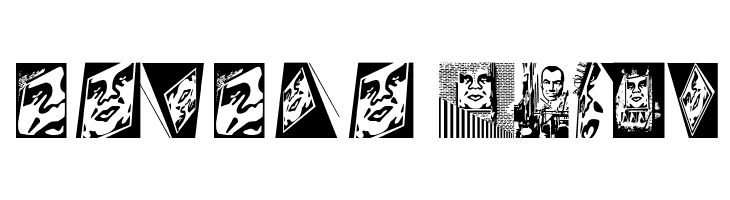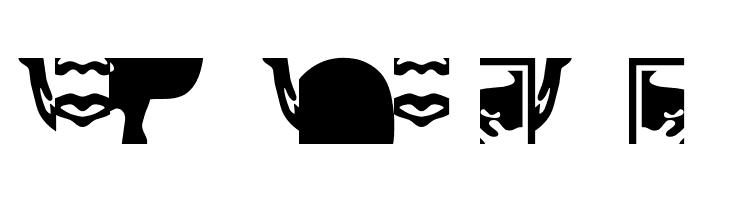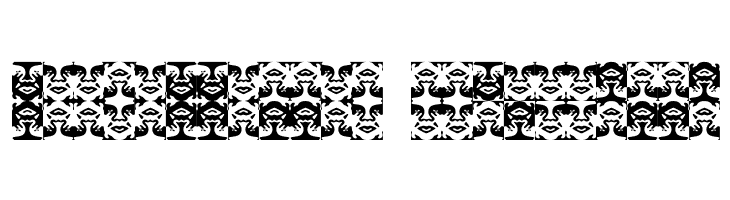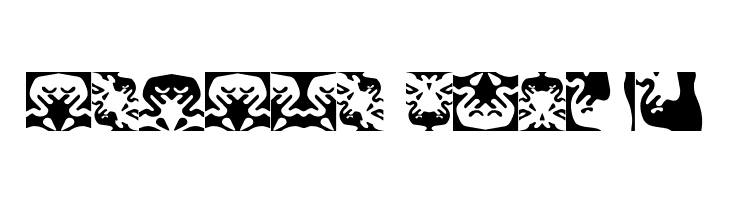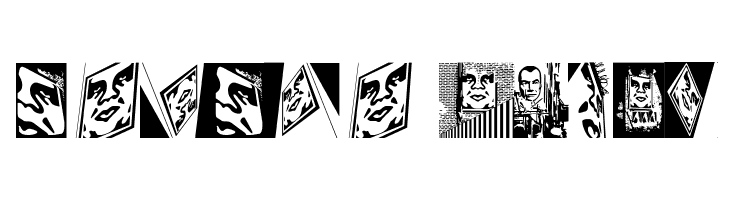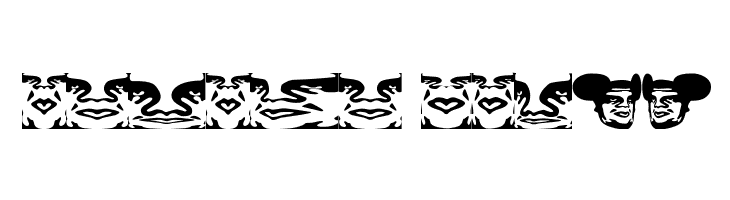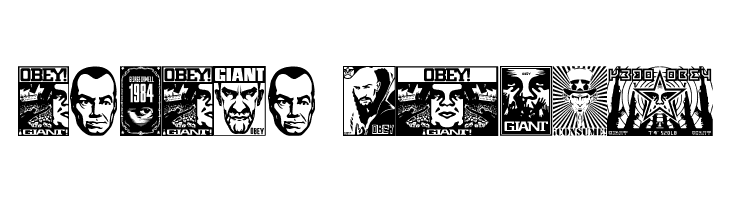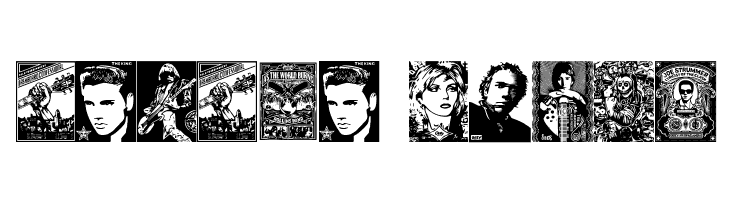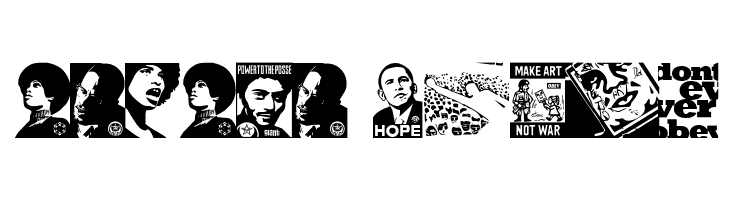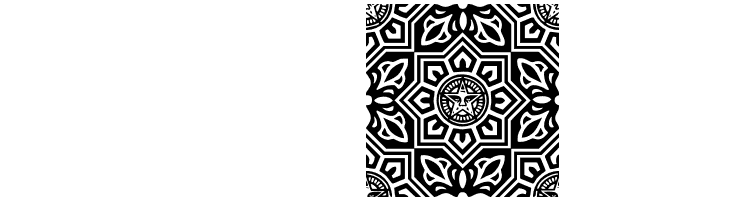
• ObeyFunhouse
A bold, artistic font with intricate, abstract designs and embedded faces.
• ObeyFunhouseCaps
A bold, decorative font with intricate patterns and abstract shapes.
• ObeyGalleria
Bold, graphic display font inspired by street art and propaganda.
• ObeyGalleriaCaps
An artistic, image-based decorative font with each character as a distinct illustration.
• ObeyGiantPoster
A diverse collection of bold, impactful fonts with unique styles.
• ObeyGiantPosterCaps
A bold, geometric font with a strong, authoritative presence.
• ObeyGiantPosterCondensed
A bold, condensed display font with a dynamic urban style.
• ObeyGiantPosterCondensedCaps
A bold, condensed font with a modern, assertive style, perfect for impactful designs.
• ObeyPatterns
Ornamental font made of complex, patterned glyphs.
• ObeyPatternsCaps
Ornate, pattern-filled decorative font with bold contrast.
• ObeyPears
Decorative, graphic, and illustrative font with street art influences.
• ObeyPearsCaps
The image contains graphic designs, not a valid font.
• ObeyPotpourri
Graphic, illustrative font with each character as a distinct artwork.
• ObeyPotpourriCaps
A graphic, street-art-inspired decorative display set of illustrated icons.
• ObeyPuzzle
A bold, condensed display font with a geometric, street-art aesthetic.
• ObeyPuzzleCaps
The image does not depict a valid font.
• ObeyRevolution
Bold, revolutionary-themed graphic designs with a street art aesthetic.
• ObeyRevolutionCaps
The image does not depict a valid font.
• ObeyRockers
Graphic-heavy, rock-inspired decorative font with illustrated characters.
• ObeyRorschach
A decorative, abstract font with inkblot-like patterns and high contrast.
• ObeyRorschachCaps